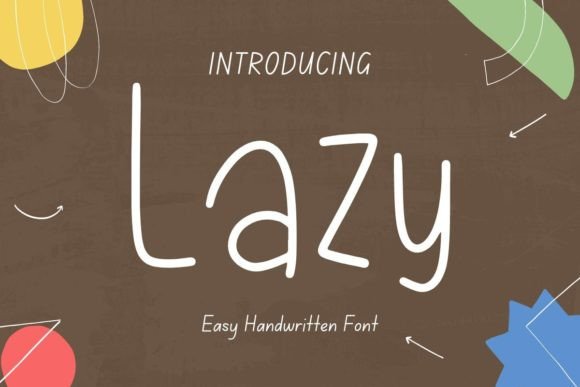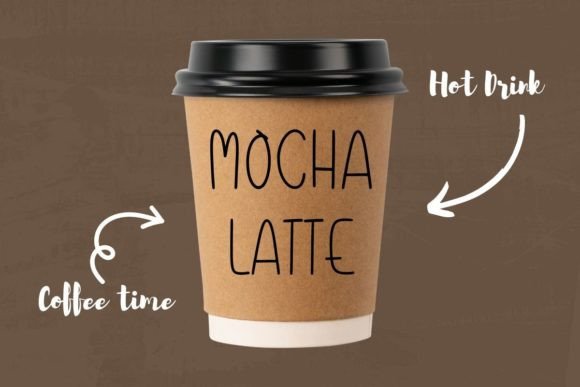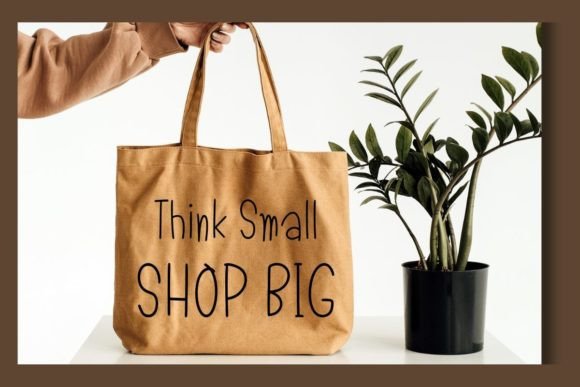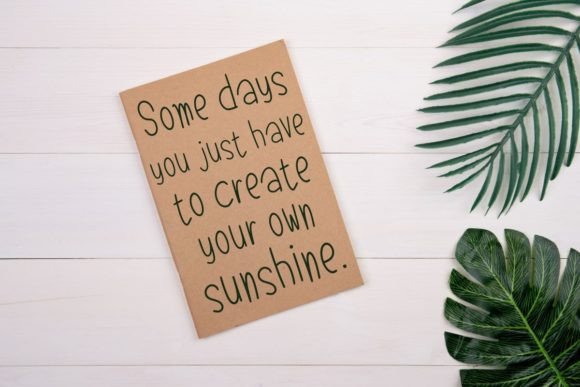
A Cute and Simple Handwritten Typeface
Lazy Font is a cute and simple handwritten typeface designed to add a personal and authentic feel to your designs. Whether you’re working on mug designs, t-shirts, hats, tote bags, or home décor, this font brings a friendly and warm touch to all of your creative projects. Its playful handwritten style ensures that your designs feel genuine, charming, and welcoming, making it perfect for a variety of projects that require a realistic yet personalized appeal.
Ideal for T-shirt and Merchandise Designs
For t-shirts and merchandise, the Lazy Font provides a casual yet charming look that fits perfectly with custom apparel. Whether you’re designing custom shirts, sweatshirts, or hats, this font adds a unique and personal touch to your designs. Its bold handwritten style makes it suitable for creating eye-catching clothing for fashion brands, event promotions, or personalized gifts. The Lazy Font ensures that your merchandise stands out with a fun, approachable style that appeals to a wide audience.
Perfect for Mugs and Custom Gifts
The Lazy Font is an excellent choice for mug designs and custom gifts. Whether you’re creating coffee mugs, gift tags, or holiday presents, this font gives your items a charming and personalized feel. Its neat handwritten design ensures that your gifts look both unique and lovable, making them perfect for personalized gift items or crafts. Use it to create one-of-a-kind gifts that are sure to make your recipients feel special.
Great for Card Making and Crafting
For card making and crafting, the Lazy Font adds a personalized, artistic touch to your creations. Whether you’re designing birthday cards, thank-you notes, or holiday greetings, this font gives your designs a natural handwritten style that adds a realistic, homemade feel. The Lazy Font is ideal for scrapbooking, DIY projects, and handmade cards, allowing you to add a creative touch to your craft work while ensuring that your designs remain simple and approachable.
Ideal for Wall Art and Interior Prints
For wall art and interior prints, the Lazy Font gives your designs a charming and authentic look. Whether you’re creating posters, decorative quotes, or framed prints, this font brings a personalized touch to your space. Its neat and inviting handwriting ensures your designs feel genuine and approachable, perfect for creating home décor that adds warmth and personality to any room.
Versatile, Legible, and Fun
Despite its simple handwritten style, the Lazy Font remains legible and easy to use. The consistent letterforms and well-spaced characters ensure that your text is clear and readable, even for longer passages or smaller sizes. Whether you’re using it for headlines, captions, or body text, this font strikes the perfect balance between creativity and readability, making it suitable for a wide range of design applications, from print to digital media.
The Lazy Font is easy to use and integrates smoothly into most design software. Whether you’re working on t-shirts, mugs, cards, or social media posts, this font ensures your designs look polished and professional while maintaining a playful, personalized style. Its versatility makes it perfect for both print and digital media, giving you the flexibility to use it across various projects with ease.
Add Charm and Personality to Your Designs with Lazy Font
If you’re looking for a cute, simple handwritten font that adds a personalized, authentic touch to your designs, the Lazy Font is the perfect choice. Whether you’re designing mugs, t-shirts, greeting cards, or home décor, this font brings a fun, casual flair to your work. Let the Lazy Font help you create memorable, charming designs that leave a lasting impression.